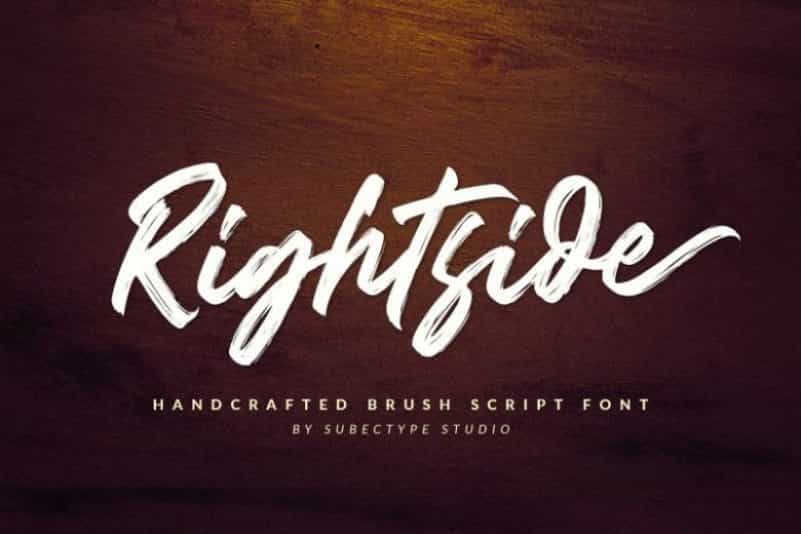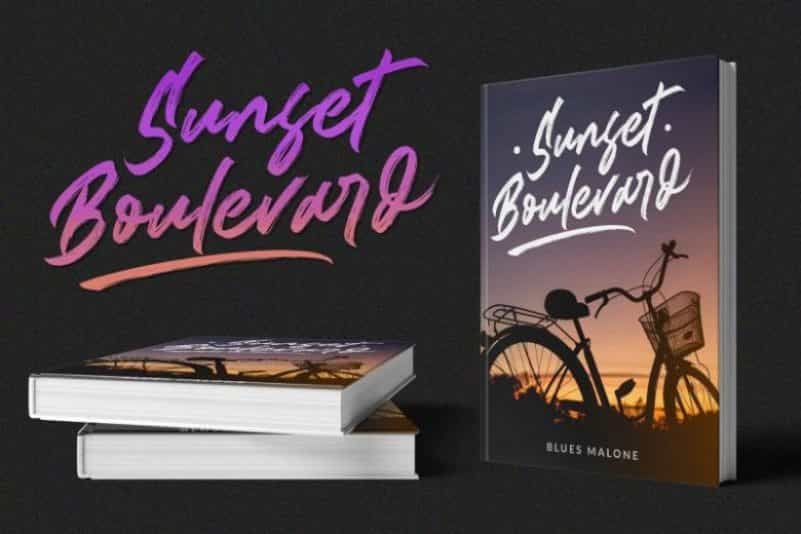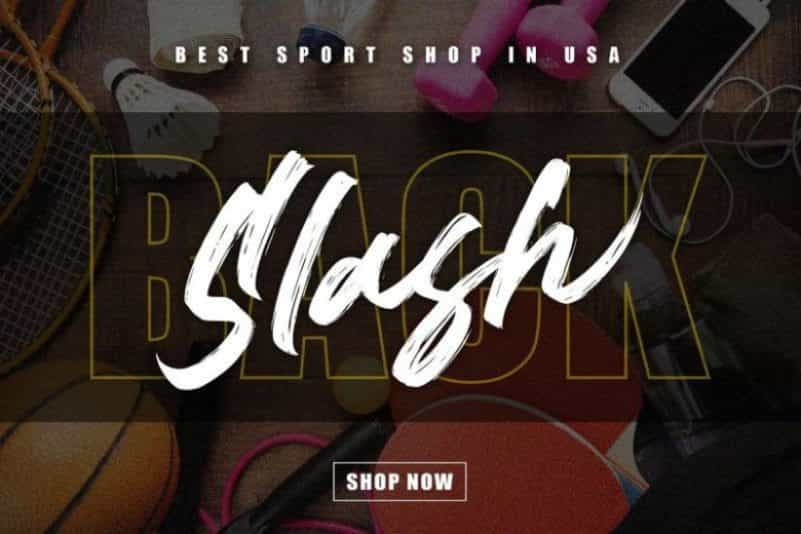
Rightside is a brush script font, but dapper handwritten one with the personal touch. Rightside is a great brand for you to use on branding projects, homeware designs, product packaging – or just as text overlay that will look good on any background image.